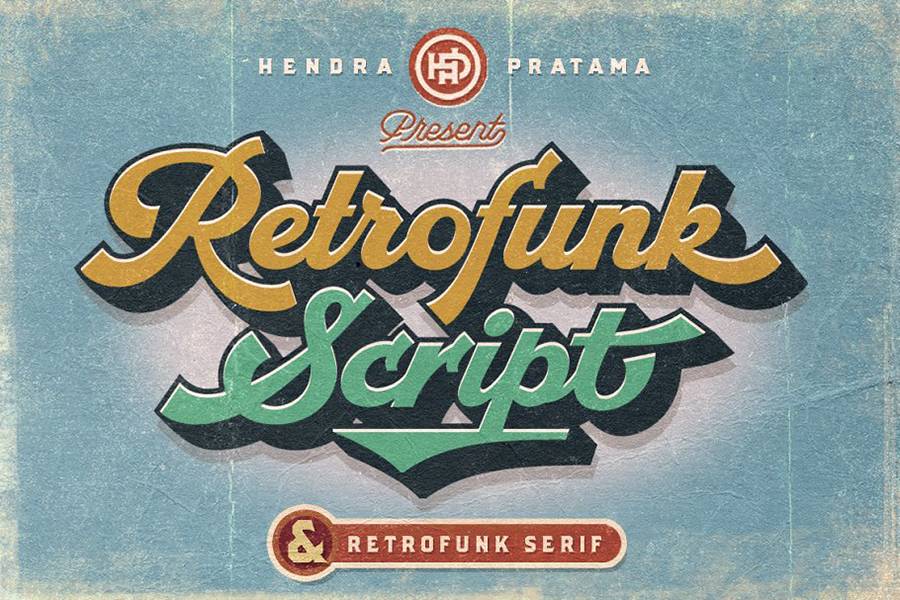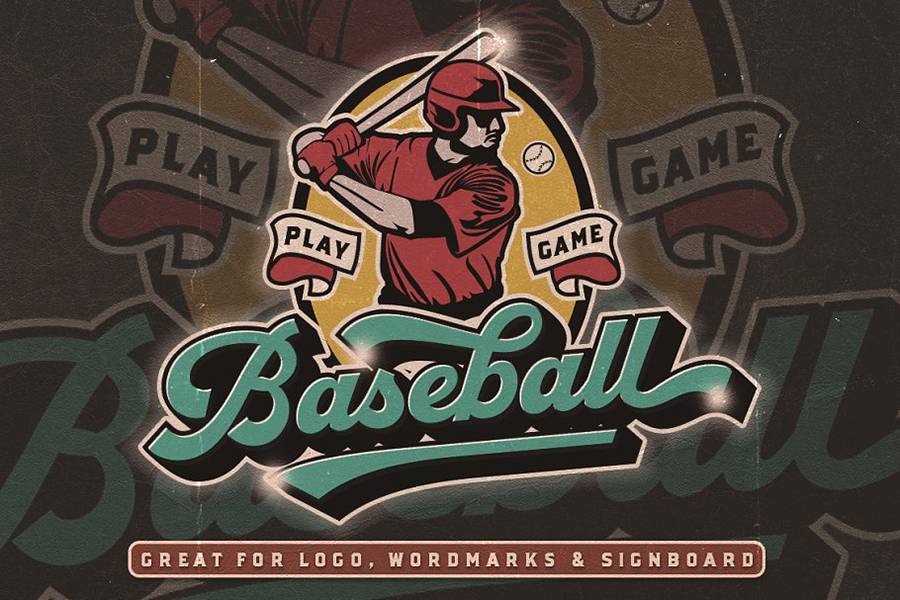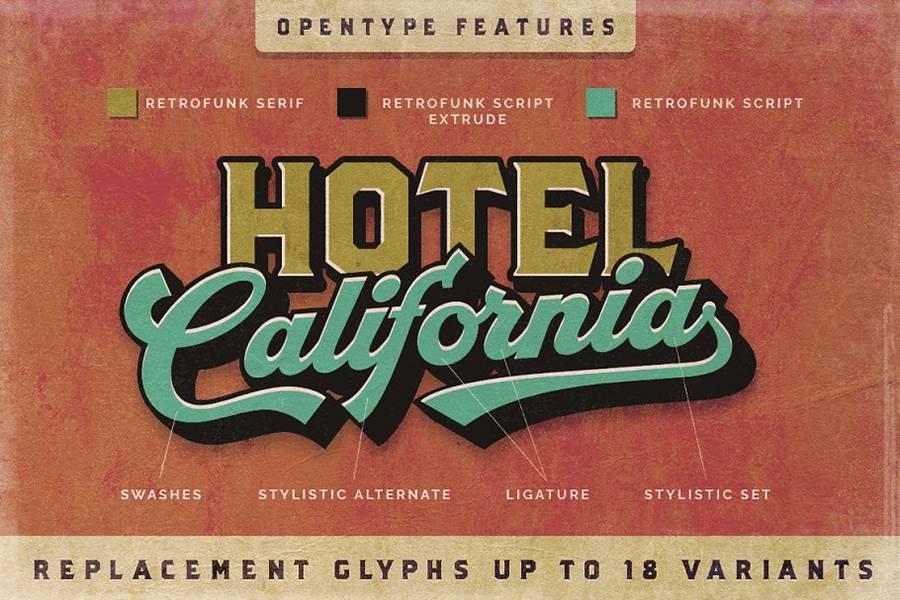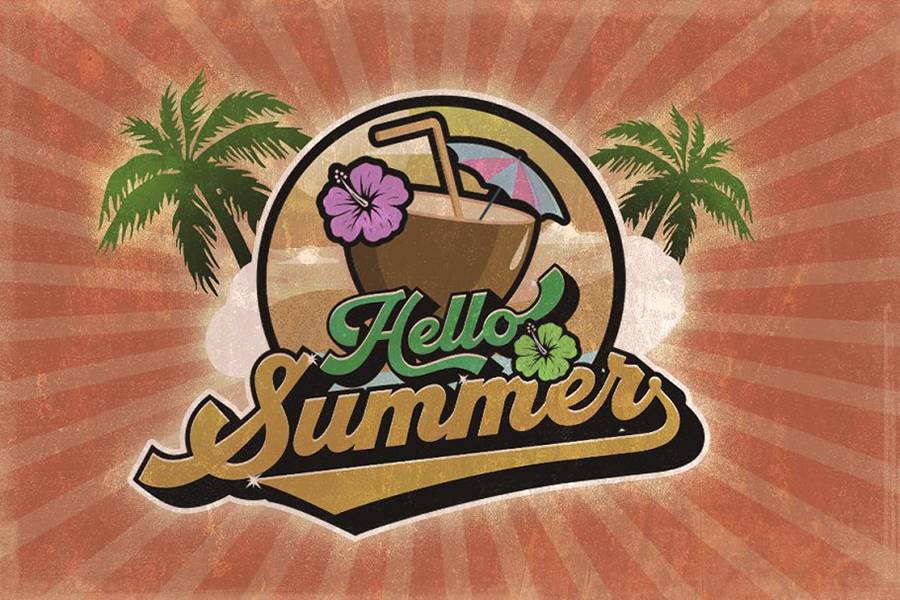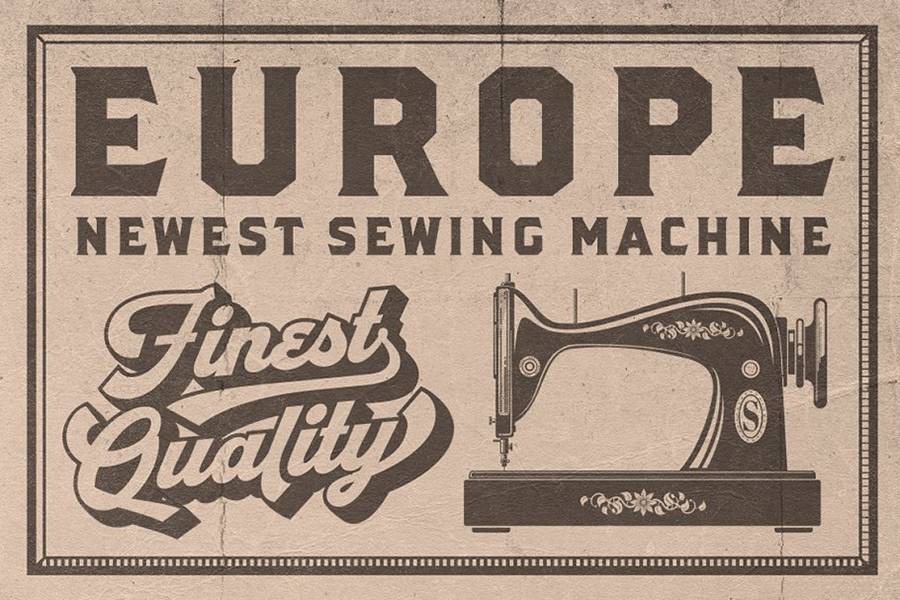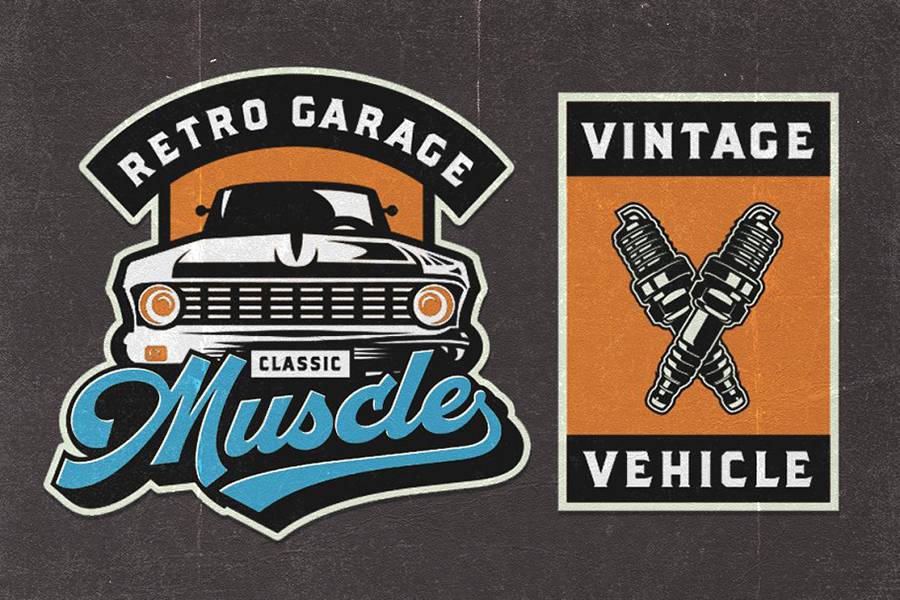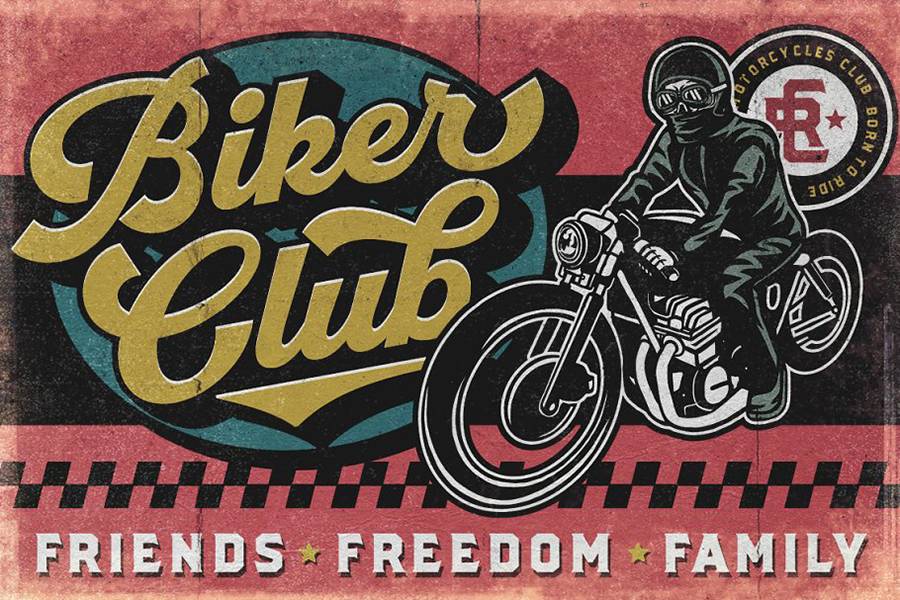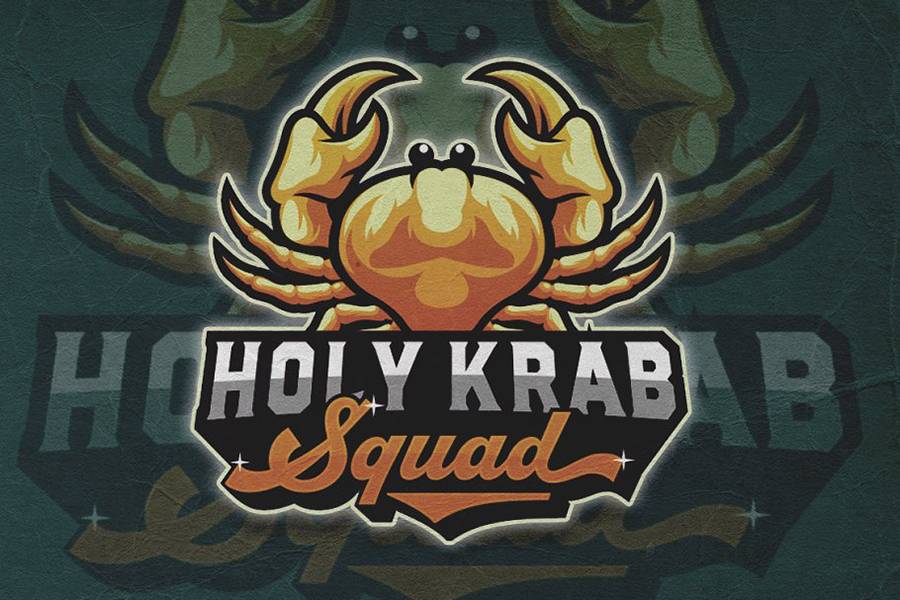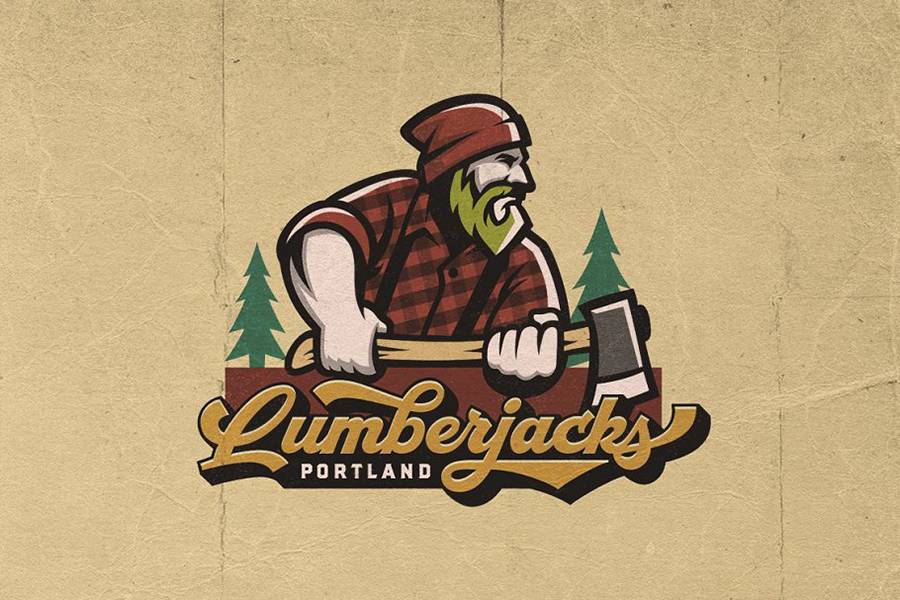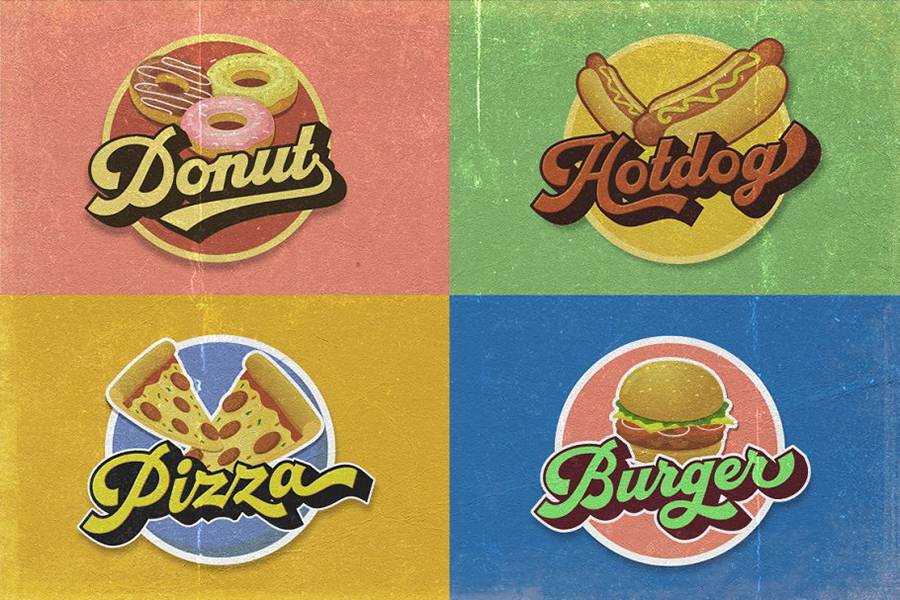
Retrofunk Script Demo is a bold, connected script font with a strong retro vibe, featuring smooth yet pronounced strokes that create a lively, stylish feel. Its thick weight and flowing letterforms make it perfect for eye-catching headlines, logos, and branding that aim to evoke vintage charm with a modern twist. This font works well for creative projects that want to capture a playful, nostalgic, and energetic personality.
Retrofunk Script Demo
About Retrofunk Script Demo
| Font family | Retrofunk Script Demo |
| Release date | 2019-06-09 |
| Designer | Hendra Pratama |